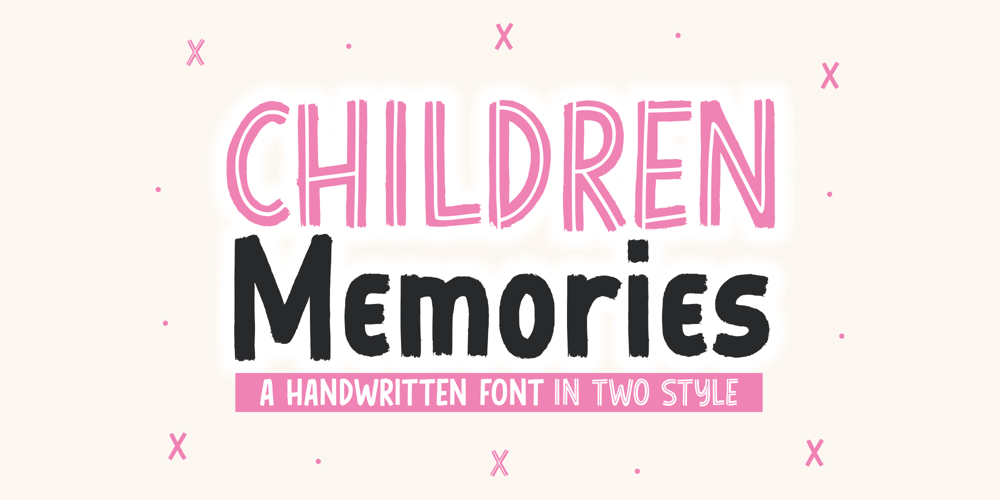
Children Memories
Children Memories font
Children Memories Font Family was designed by Fachrizal Yusuf and published by Allouse Studio. Children Memories contains 2 styles and family package options. Proudly Presenting, Children Memories A Bold Handwritten Font In Two Style.Children Memories is perfect for any titles, logo, product packaging, branding project, megazine, social media, wedding, or just used to express words above the background.Children Memories also come with Multi-Lingual Support.Enjoy the font, feel free to comment or feedback, send me PM or email. Thank You!